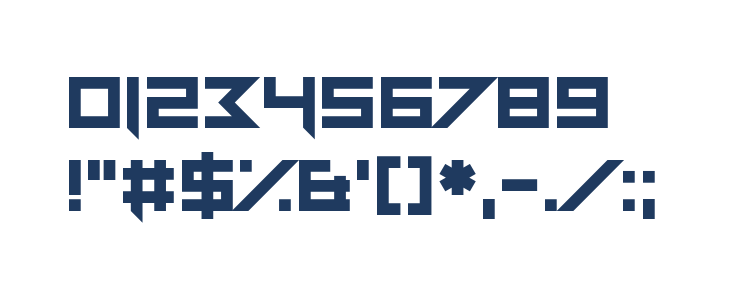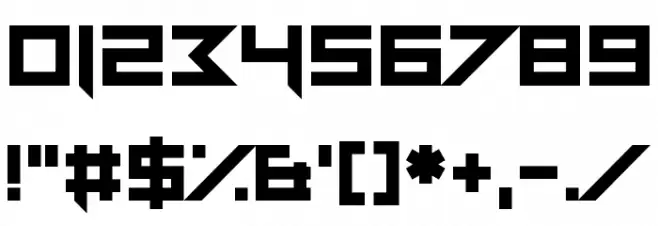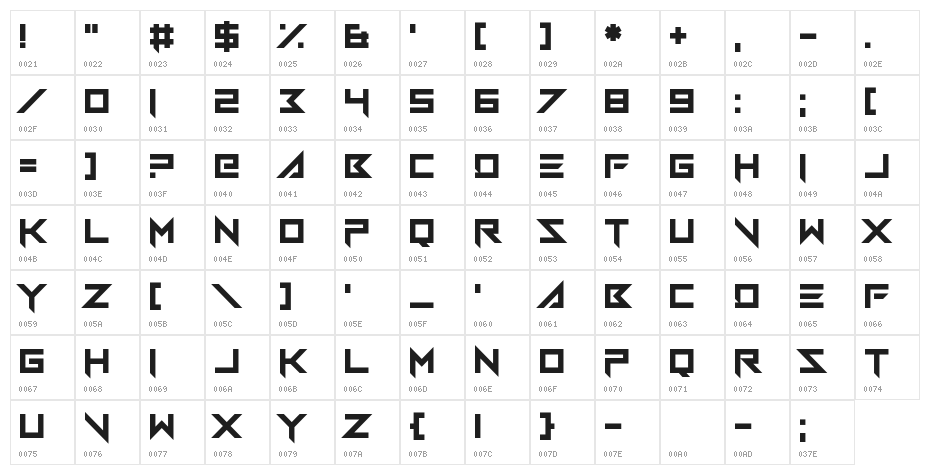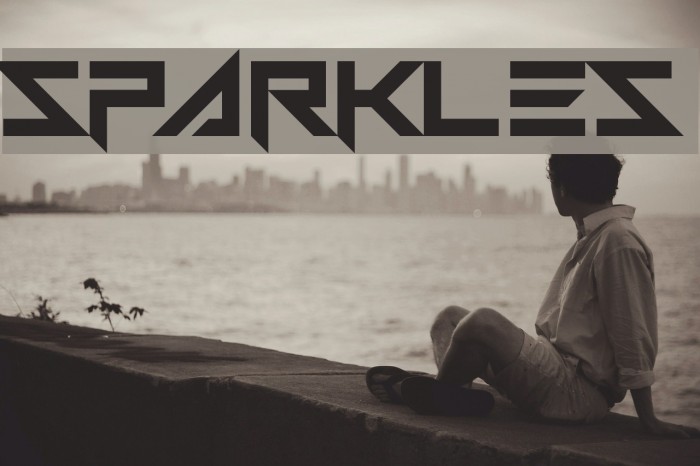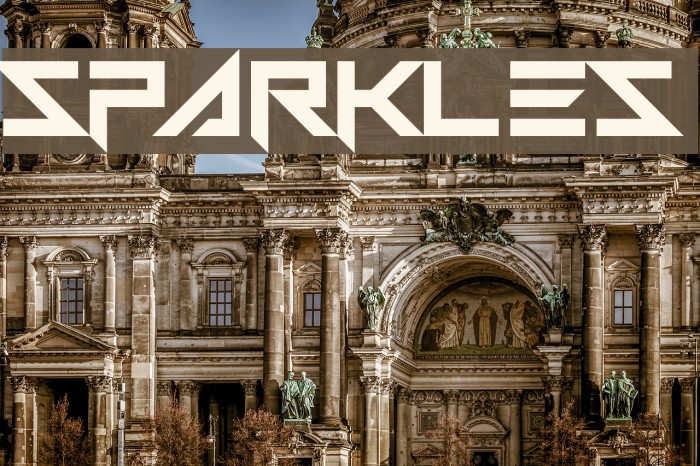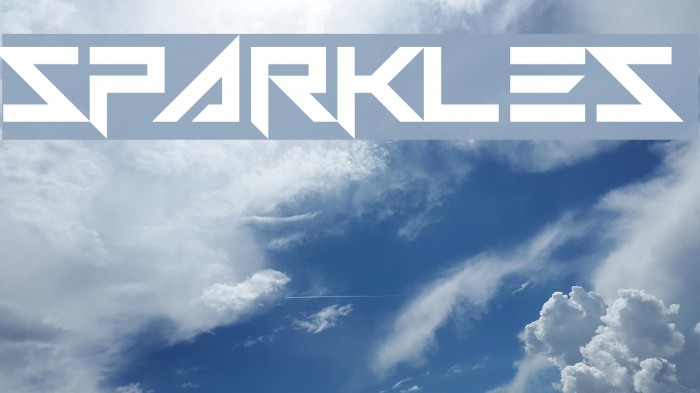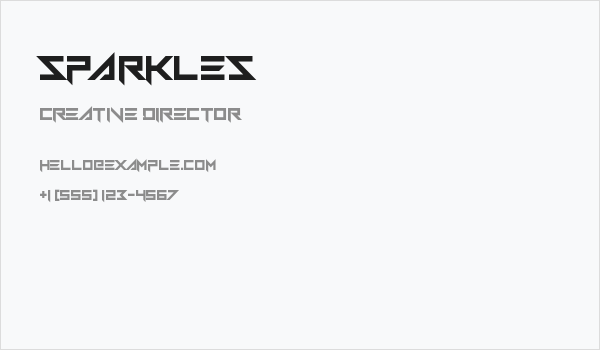
Sparkles Font
Sparkles Description
This font features a bold and futuristic design with sharp, angular lines and geometric shapes. The characters are constructed with a consistent thickness, giving it a uniform appearance. The uppercase and lowercase letters share a similar style, emphasizing the font's modern and edgy aesthetic. The numbers and special characters are designed to match the overall look, making it suitable for projects that require a strong visual impact. The font's unique style makes it stand out, ideal for creative and innovative designs.
| Proposed Projects | Ideal for sci-fi themed designs, video game titles, technology branding, and modern posters. |